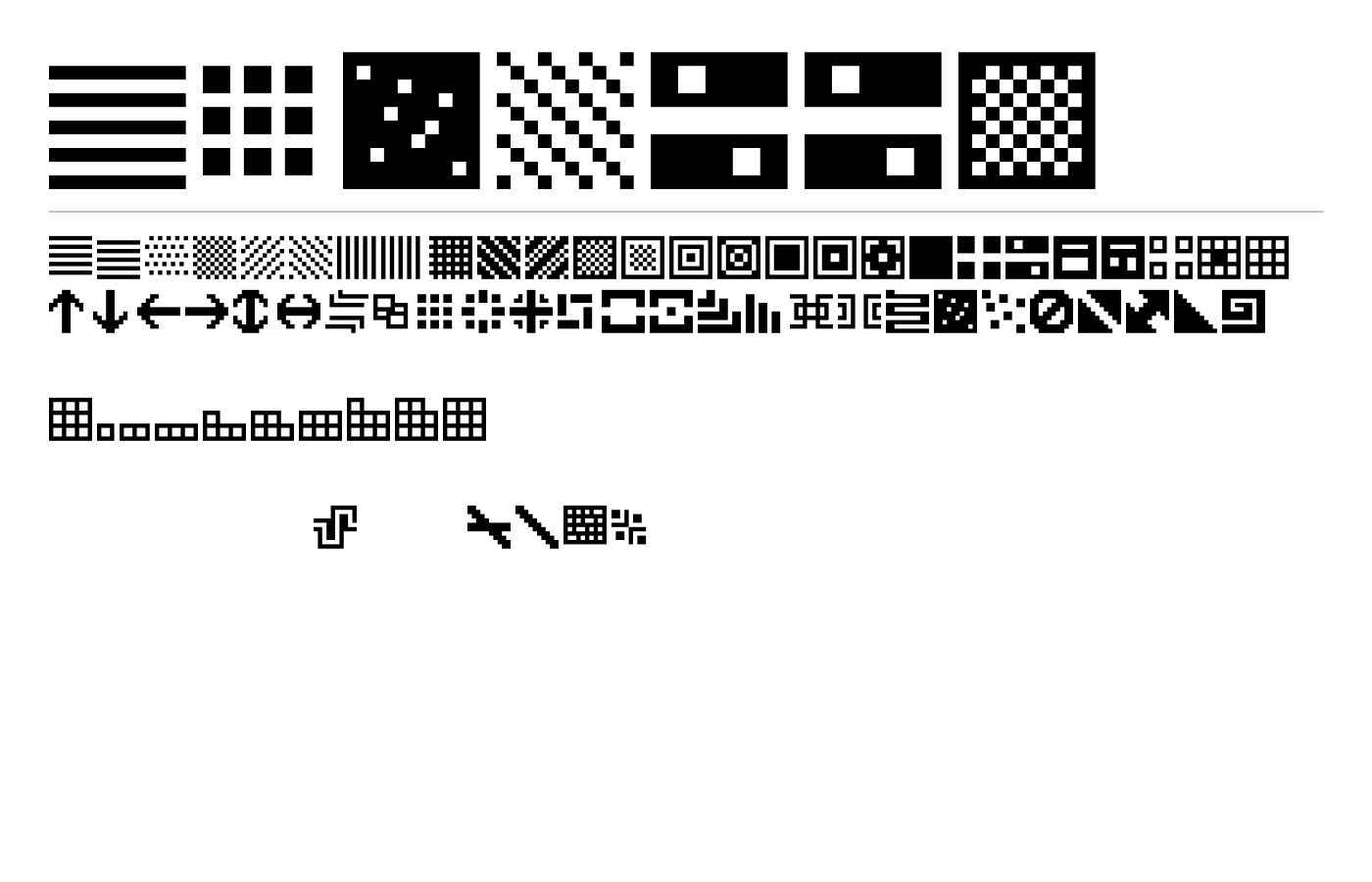
OPN BitFUUL is a pixelated, geometric display font with a strong retro digital vibe, characterized by its blocky, square-shaped glyphs and consistent stroke weight. Its design evokes early computer graphics and 8-bit video games, making it perfect for projects seeking a nostalgic or tech-inspired aesthetic. This font works best in bold headlines, logos, and digital art where its pixel-perfect style can stand out and create a distinctive, futuristic feel.
OPN BitFUUL Font
About OPN BitFUUL Font
| Font family | OPN BitFUUL Font |